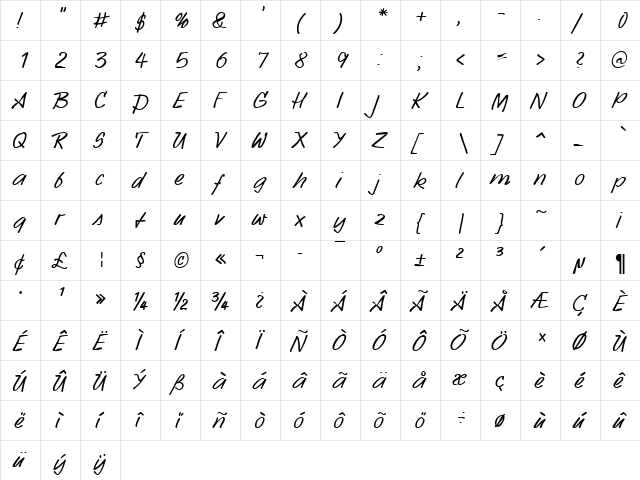
HW Sarx DB Normal
Design Context for HW Sarx DB Typeface
HW Sarx DB is a composed and adaptable typeface that performs quietly and consistently across a wide range of design contexts.